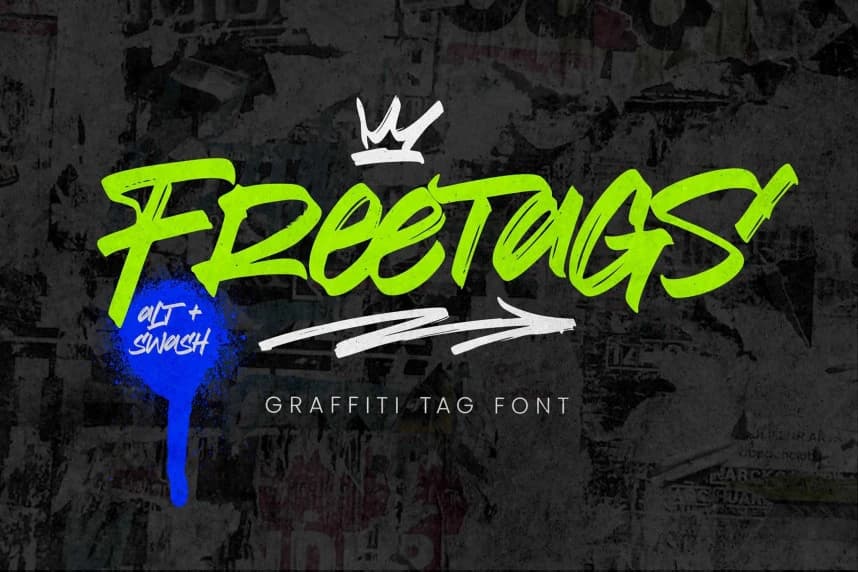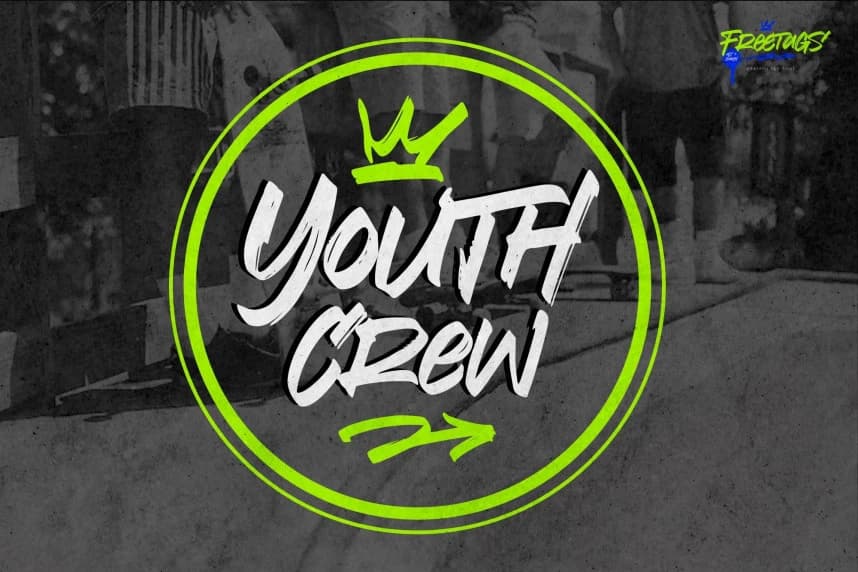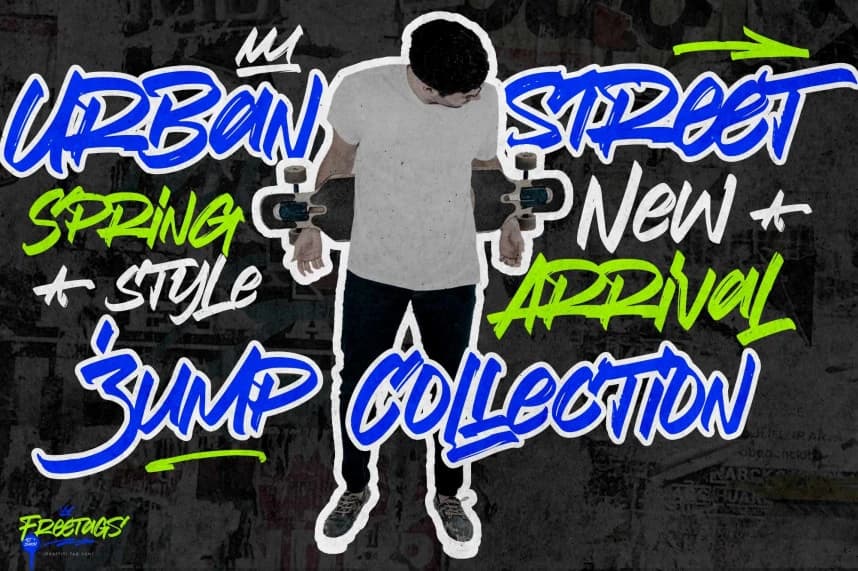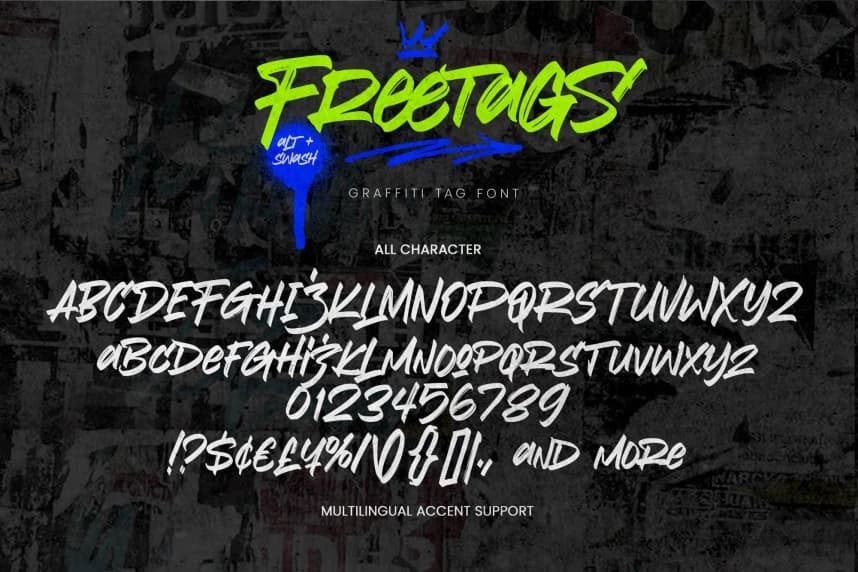
Freetags Graffiti Font
Freetags Graffiti Font - This is a Graffiti Tag Font, with simple tags and graffiti style, this font is perfect for making a strong statement in your designs.